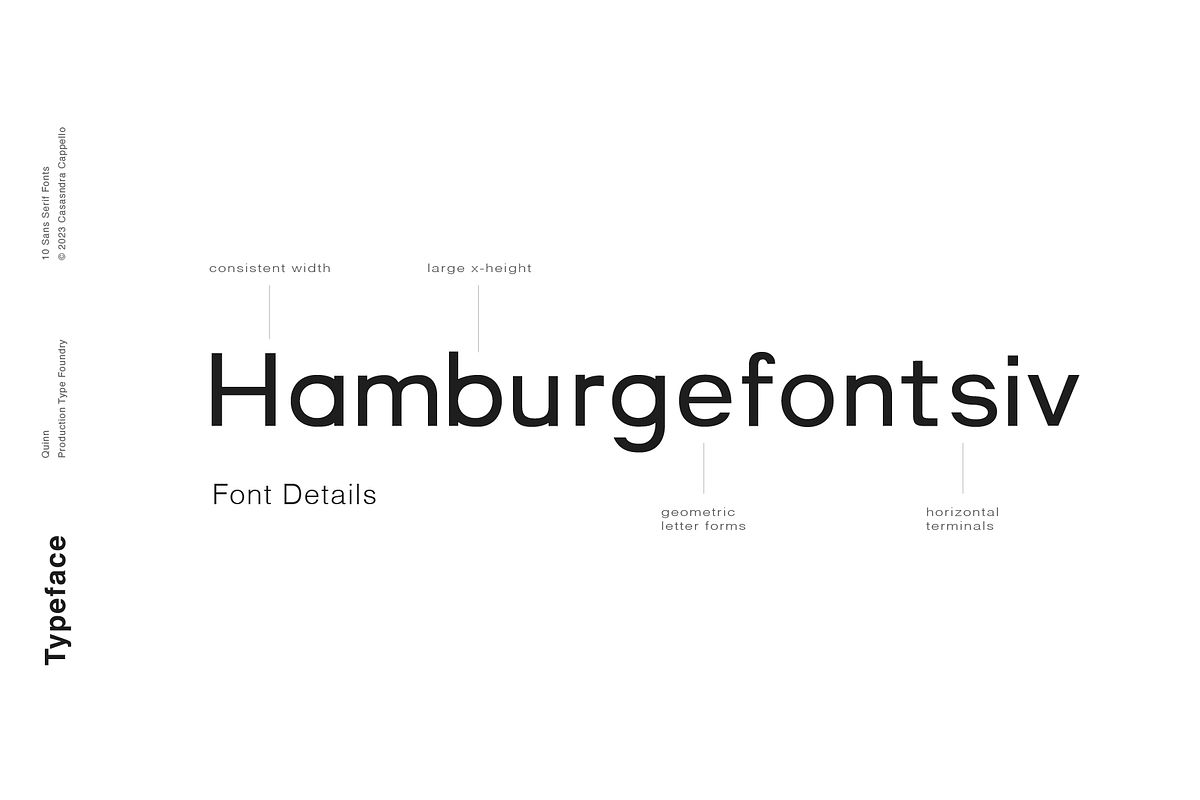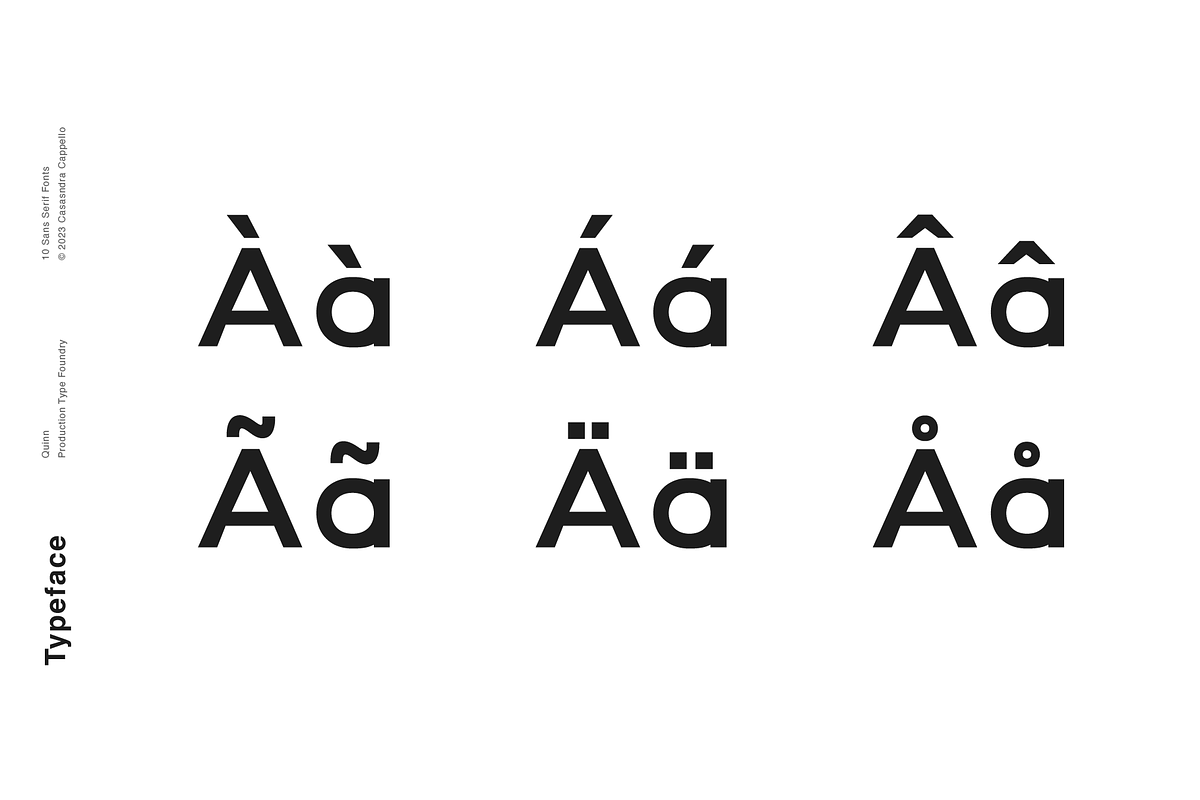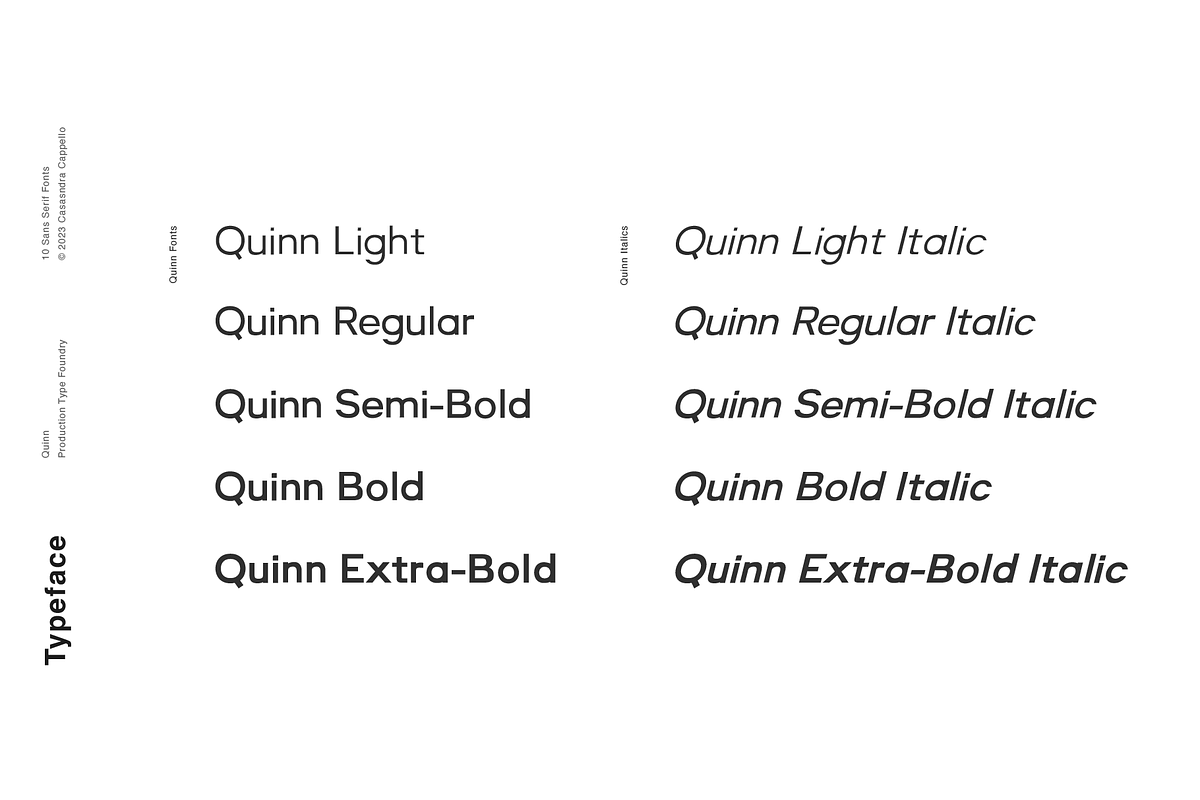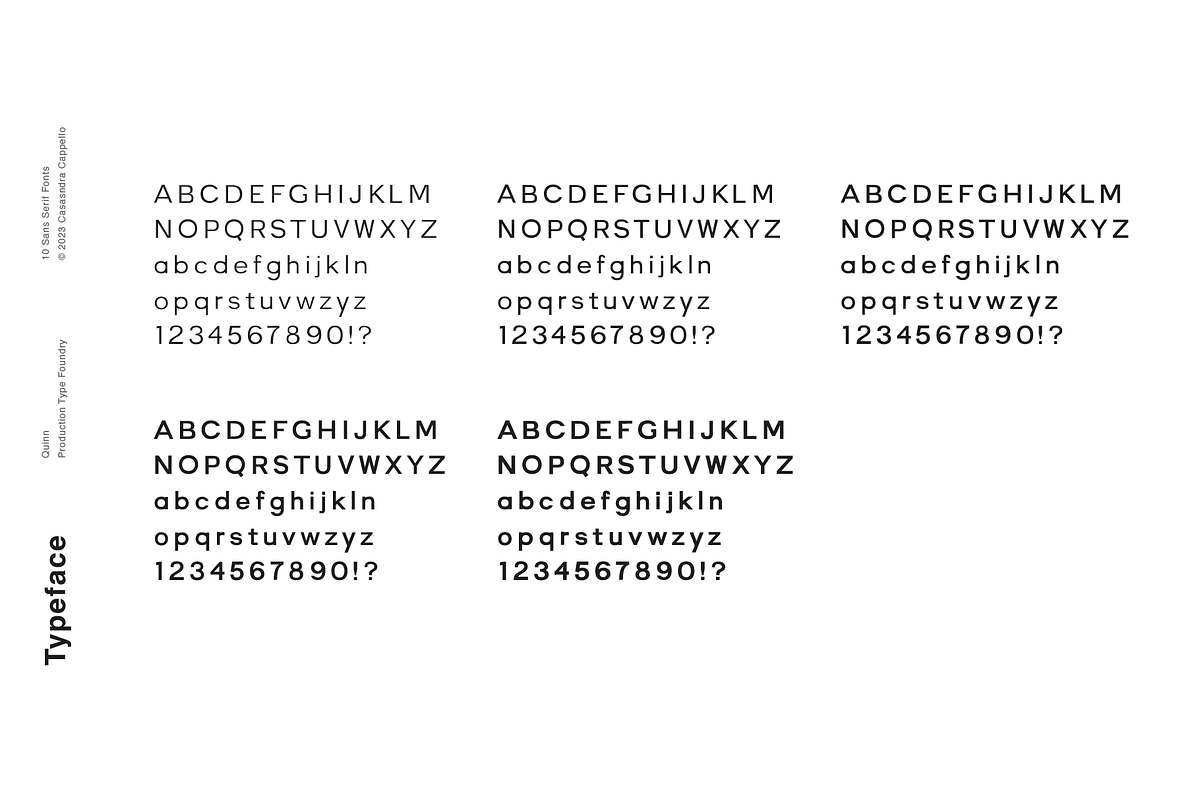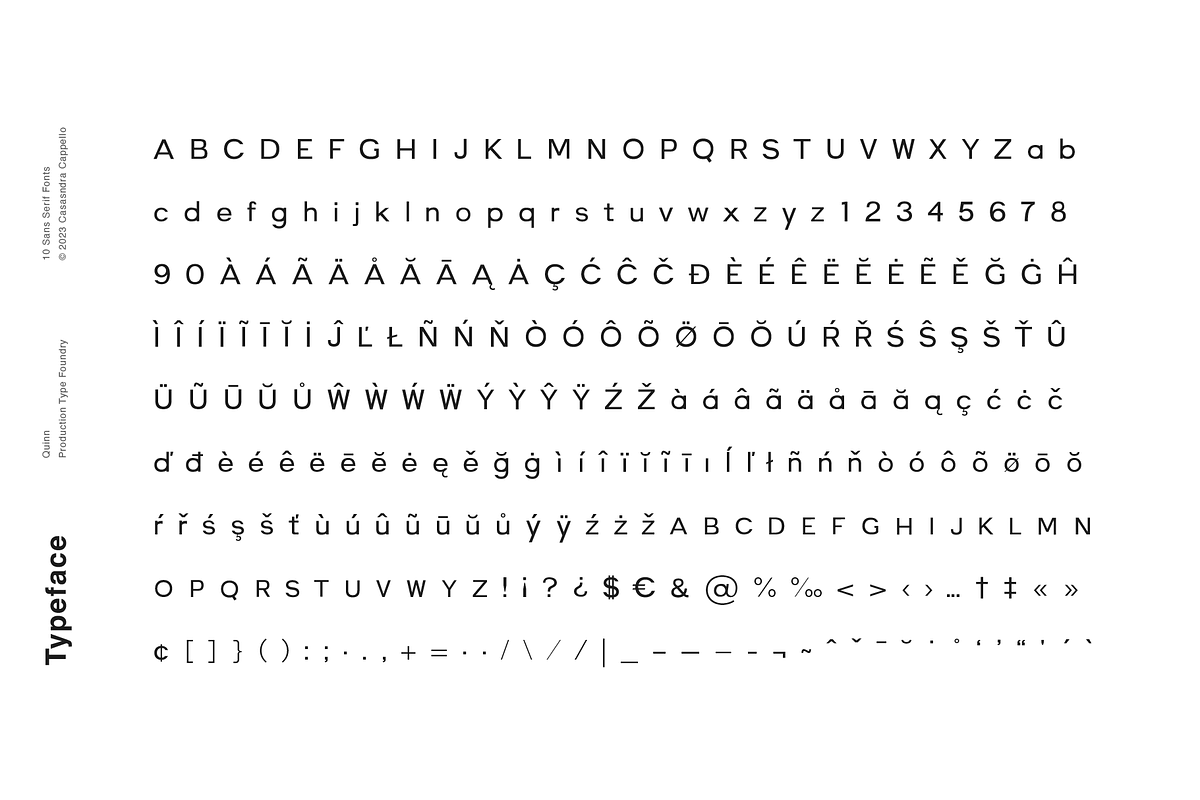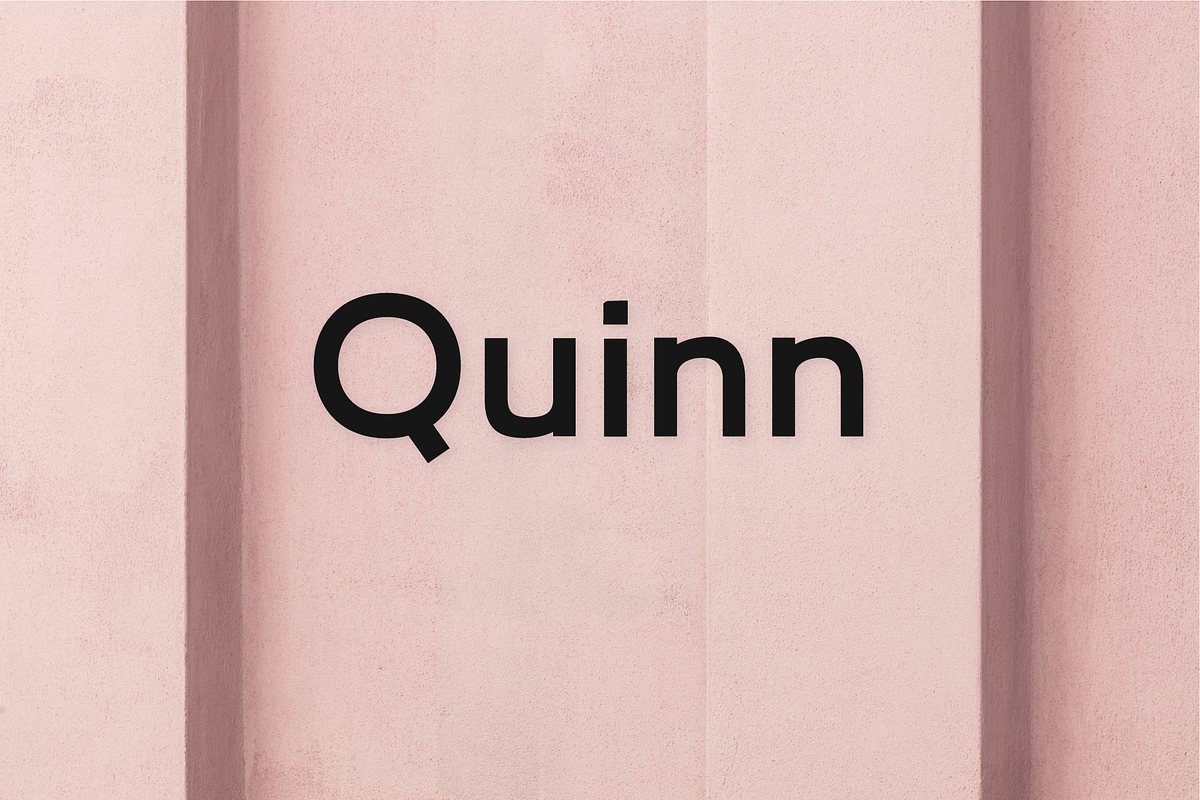
Quinn - A minimal sans serif
Quinn is a modern, minimal, and slightly rounded sans serif typeface. It has a cute and charming personality and can be used for both headers and body copy. This font family includes all Latin characters (including accents), numbers, special characters, and punctuation.